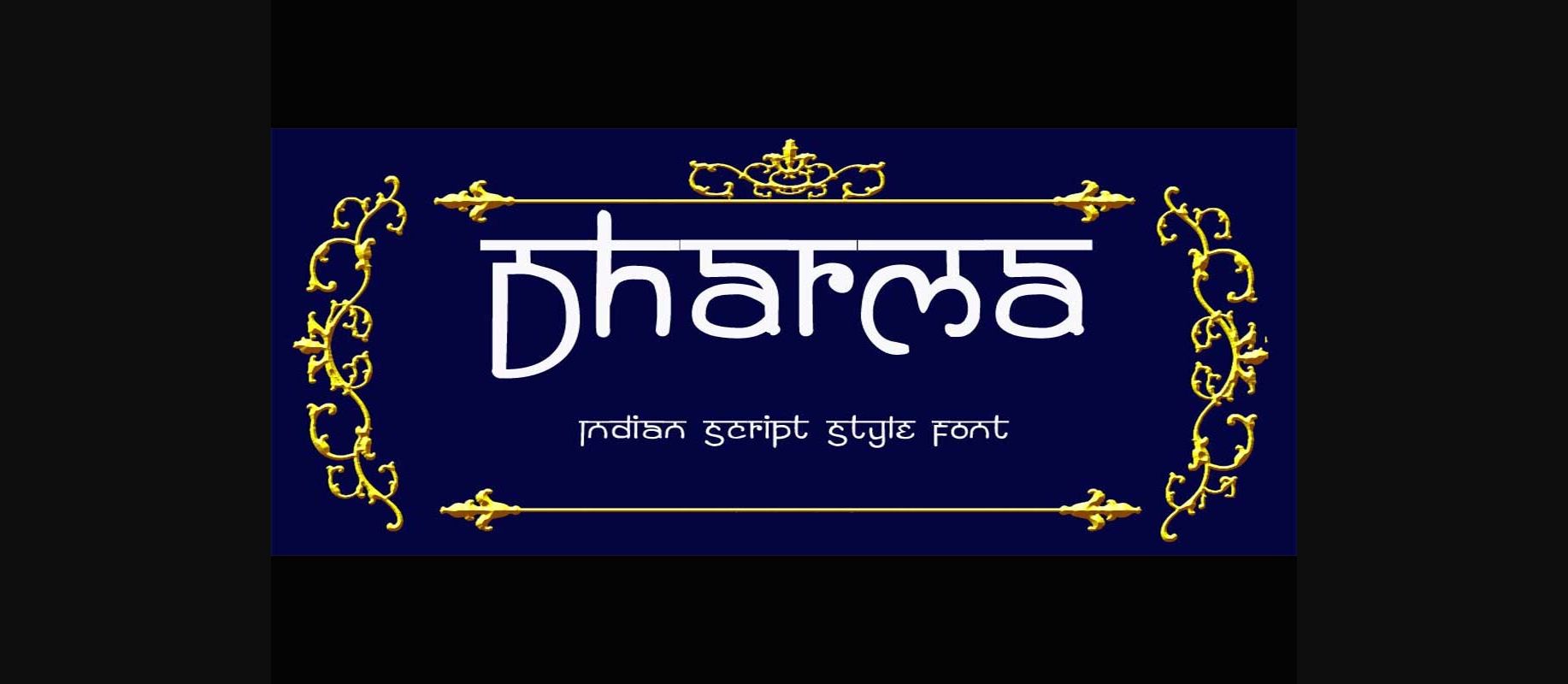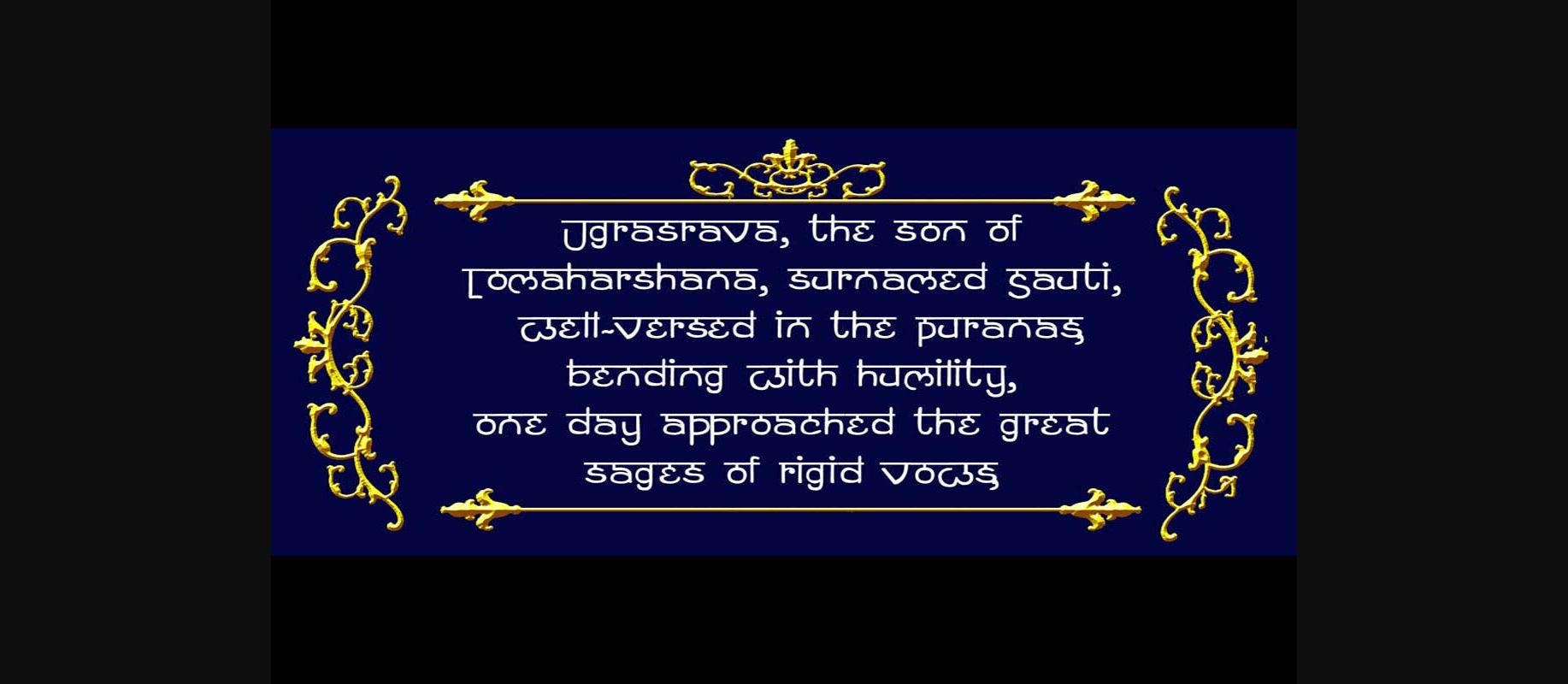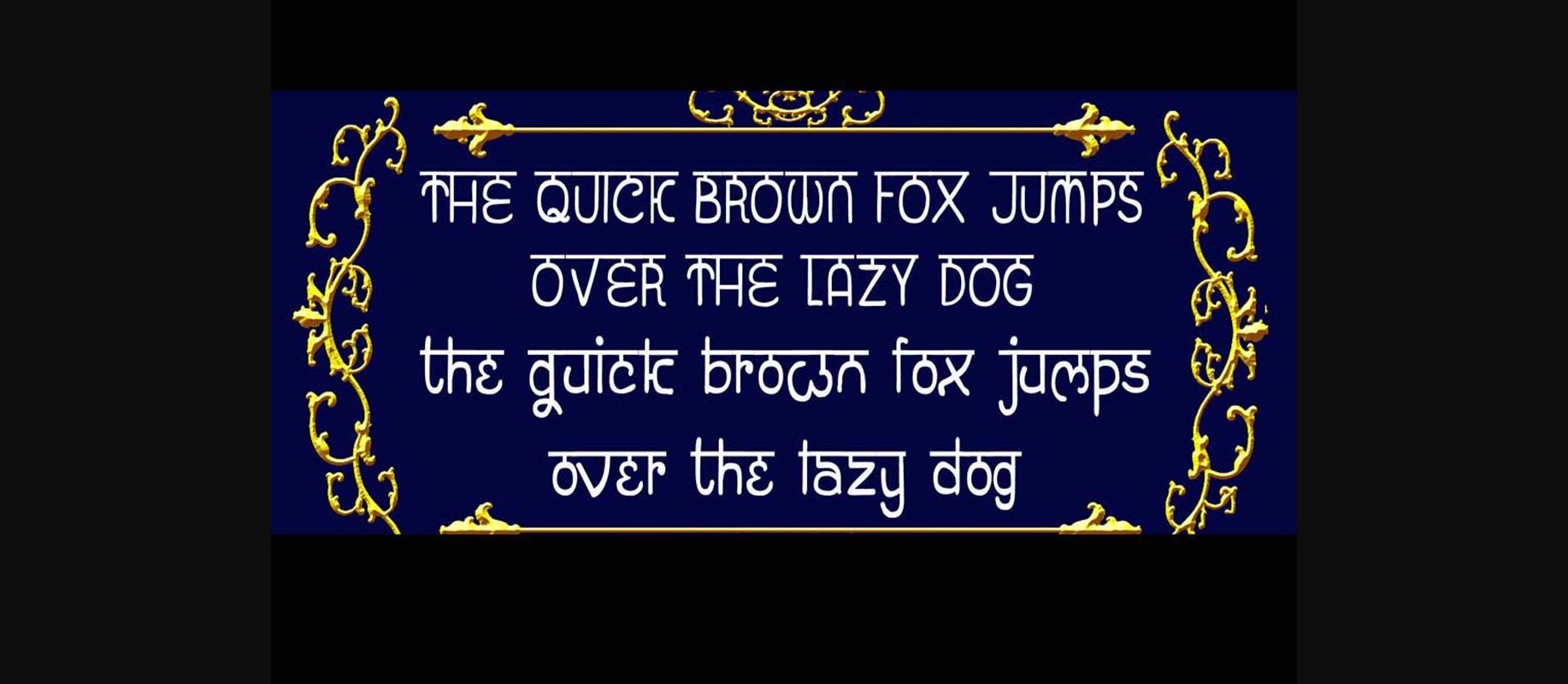
About Gharma Font
This font embodies an Indian design style, but it should be noted that it is not authentically Indian. Gharma Font offers a unique and artistic script, making it a suitable choice for creating titles for books on Indian philosophy, crafting logos for spa and yoga studios, Indian-themed restaurants, apparel, and more.